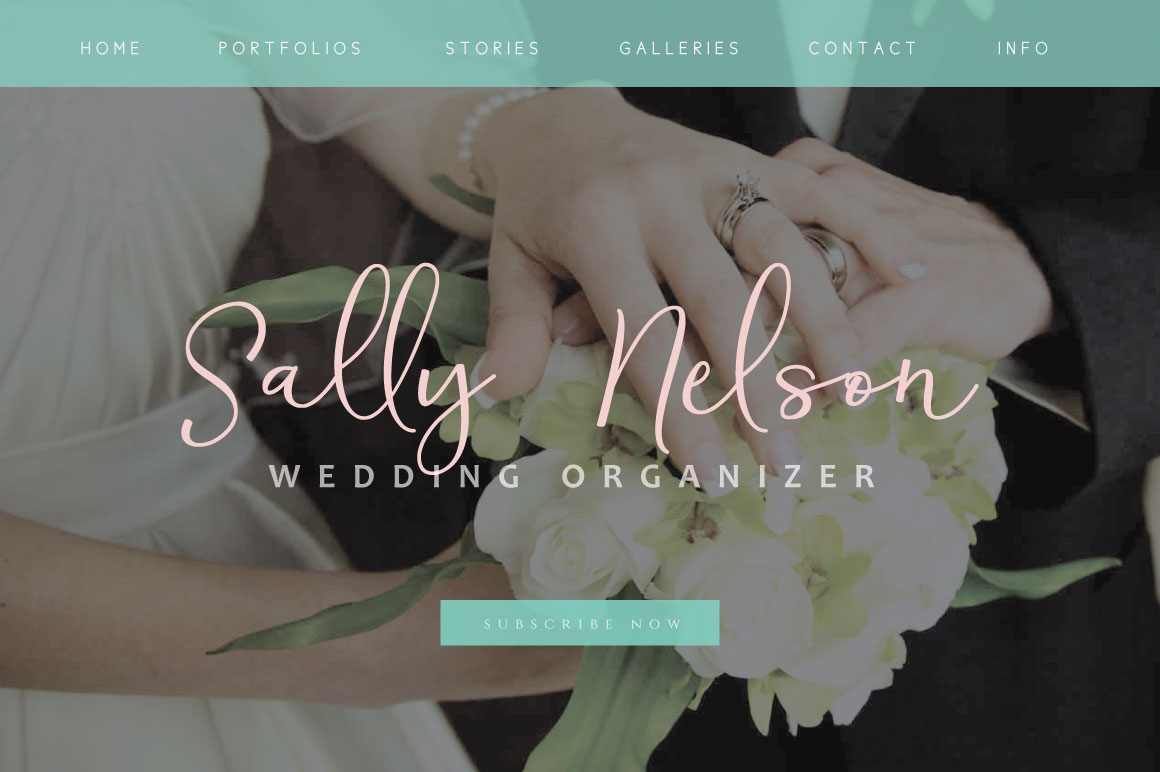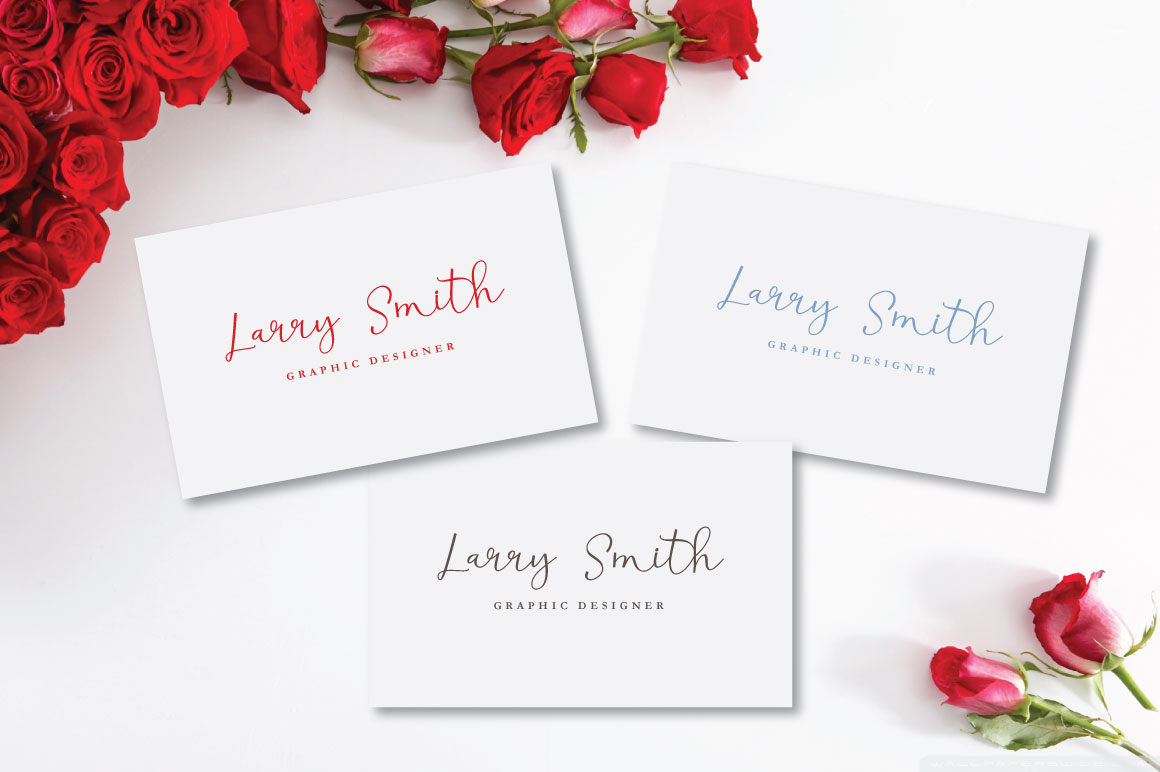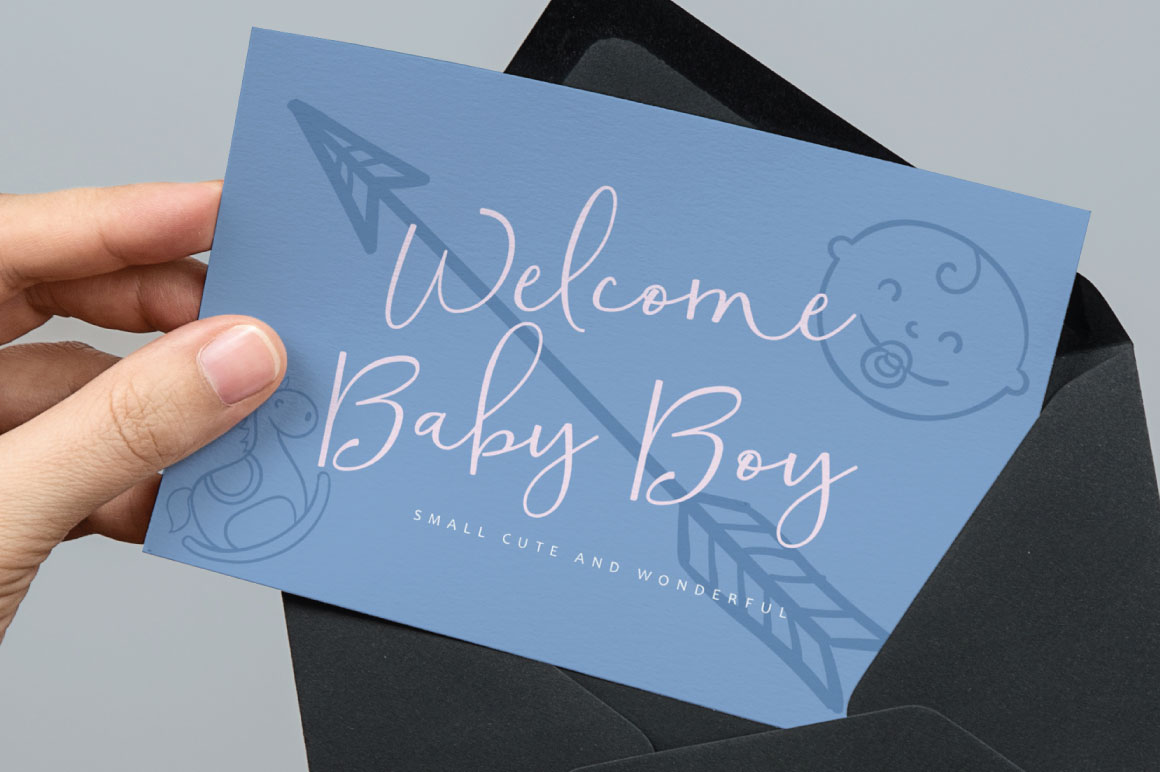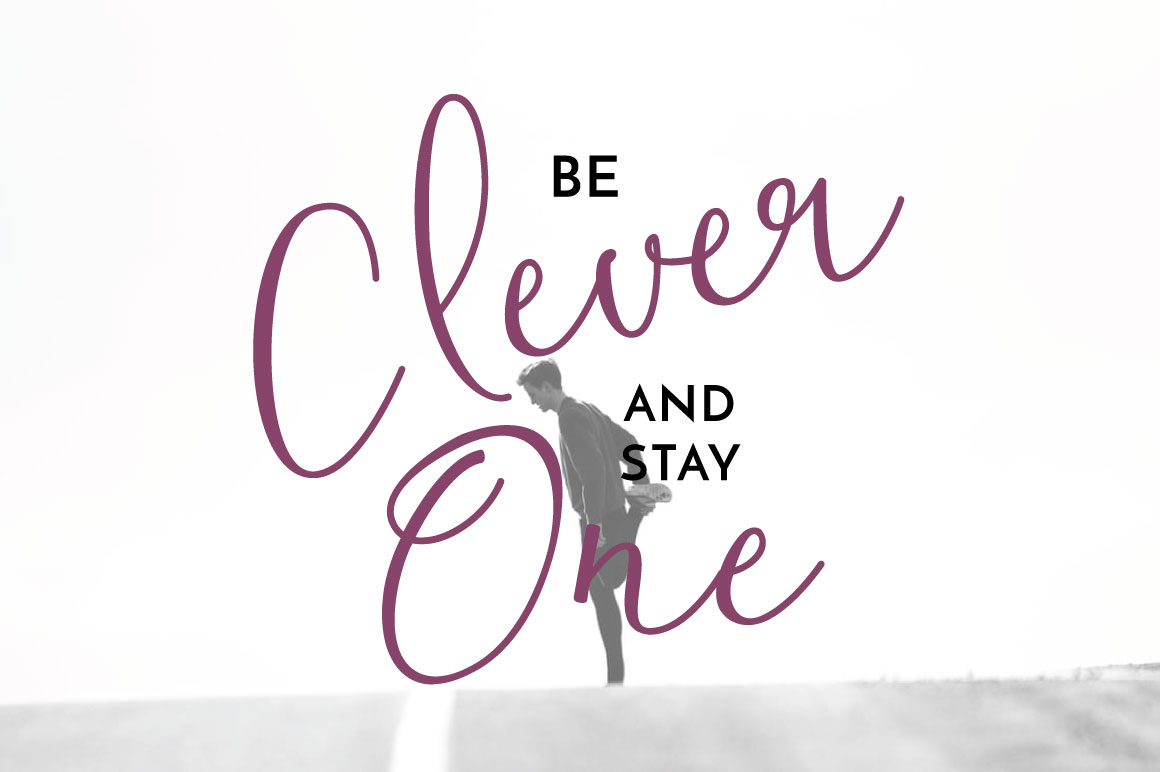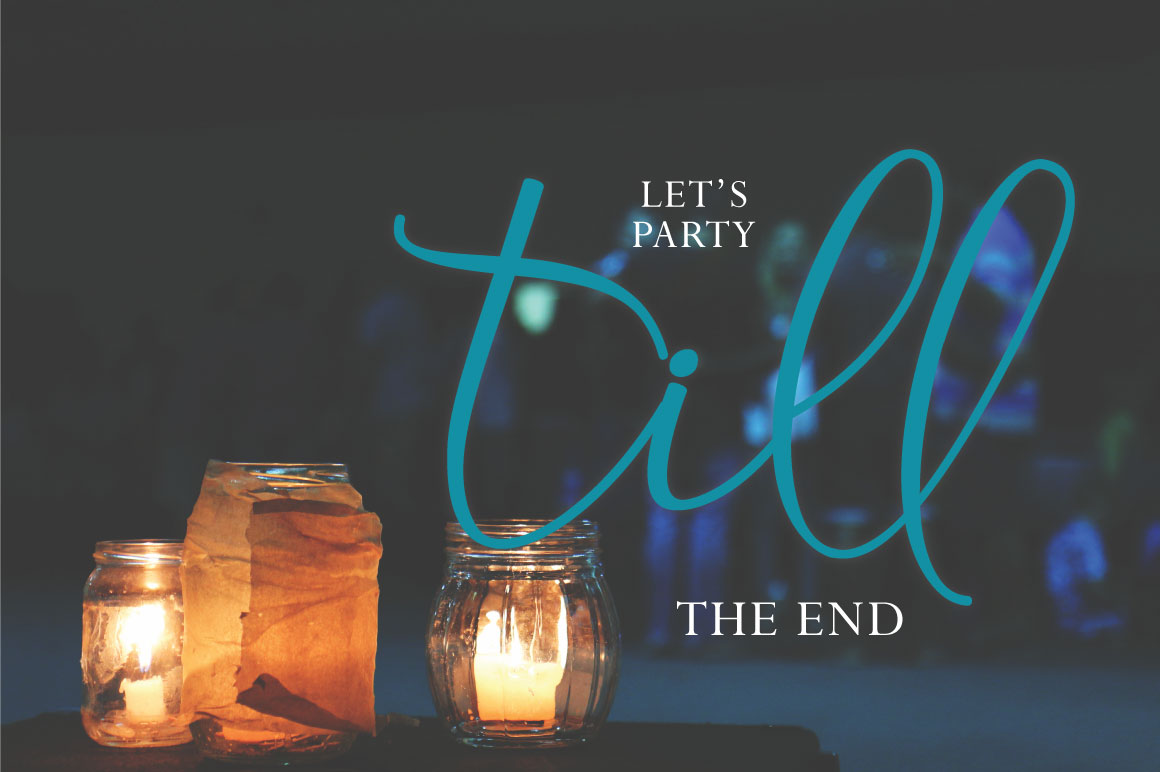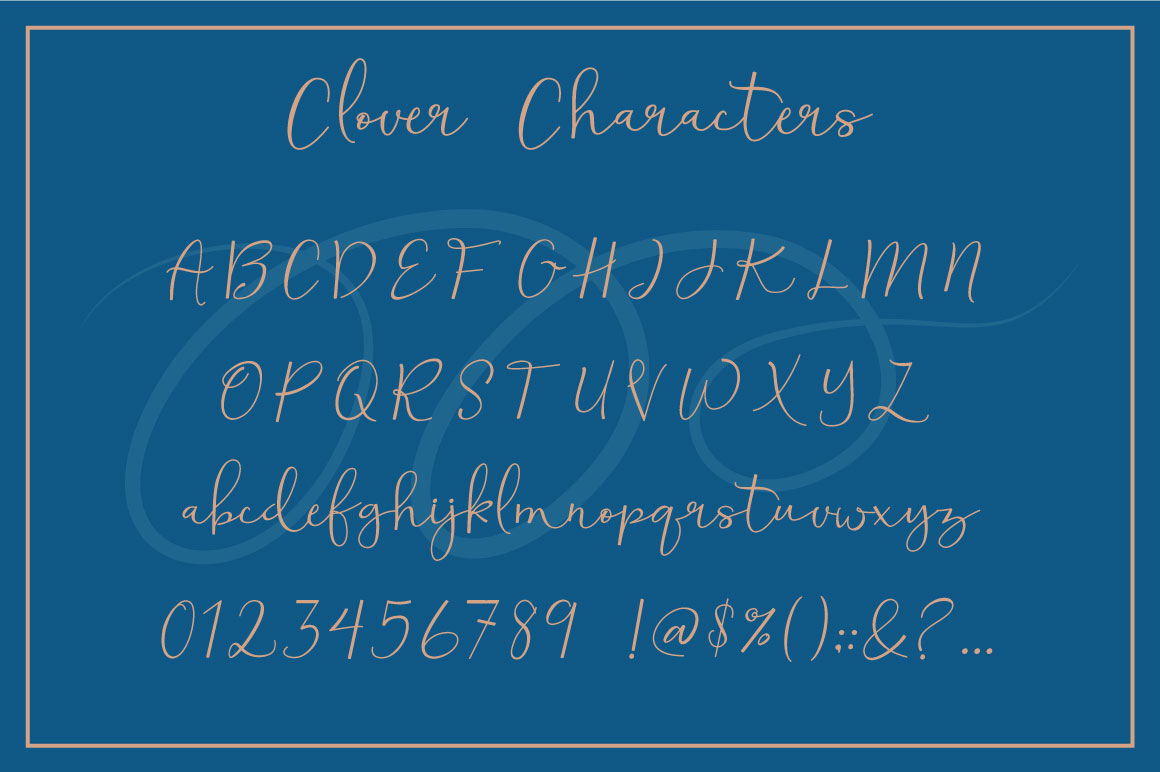
Clover Font: A Charming Handwritten Typeface for Your Creative Projects
Are you a designer or crafter looking for a font that can add a touch of personality to your projects? Look no further than the Clover Font. This simple, casual handwritten font is designed to help you create flowing texts that are both elegant and approachable. In this article, we’ll take a closer look at the Clover Font, its features, and how you can use it to elevate your designs.
What is Clover Font?
Clover Font is a charming, handwritten typeface that is perfect for a wide range of creative projects. Its simple and casual design makes it easy to read and understand, while its elegant lines and curves add a touch of sophistication. Whether you’re designing a logo, creating a social media post, or crafting a handmade card, the Clover Font is a versatile choice that can help you achieve your design goals.
Key Features of Clover Font
So, what makes the Clover Font so special? Here are some of its key features:
- Simple and Casual Design: The Clover Font has a simple and casual design that makes it easy to read and understand. Its clean lines and curves create a smooth and flowing text that is perfect for a wide range of projects.
- Handwritten Style: The Clover Font has a handwritten style that adds a touch of personality to your designs. Its elegant lines and curves create a warm and inviting feel that is perfect for crafts, DIY projects, and other creative endeavors.
- Versatile: The Clover Font is a versatile choice that can be used for a wide range of projects. Whether you’re designing a logo, creating a social media post, or crafting a handmade card, this font is a great choice.
- Elegant and Approachable: The Clover Font is both elegant and approachable. Its simple design makes it easy to read, while its elegant lines and curves add a touch of sophistication.
How to Use Clover Font in Your Designs
Now that we’ve covered the features of the Clover Font, let’s talk about how you can use it in your designs. Here are some ideas to get you started:
- Handmade Cards and Crafts: The Clover Font is a great choice for handmade cards and crafts. Its handwritten style and elegant lines make it perfect for creating personalized and unique gifts.
- Social Media Posts: The Clover Font is also a great choice for social media posts. Its simple and casual design makes it easy to read, while its elegant lines and curves add a touch of personality to your posts.
- Logos and Branding: If you’re looking for a font for your logo or branding, the Clover Font is a great choice. Its elegant and approachable design makes it perfect for businesses that want to create a warm and inviting brand.
- DIY Projects: The Clover Font is also a great choice for DIY projects. Its simple and casual design makes it easy to use, while its elegant lines and curves add a touch of sophistication to your projects.
Tips for Using Clover Font
Here are some tips for using the Clover Font in your designs:
- Use it with Images: The Clover Font looks great when paired with images. Try using it with photos, illustrations, or other graphics to create a visually appealing design.
- Experiment with Colors: The Clover Font comes in a range of colors, so don’t be afraid to experiment. Try using different colors to create a unique and eye-catching design.
- Keep it Simple: The Clover Font is a simple and casual font, so keep your design simple and clean. Avoid cluttering your design with too many elements.
In conclusion, the Clover Font is a charming handwritten typeface that is perfect for a wide range of creative projects. Its simple and casual design makes it easy to read, while its elegant lines and curves add a touch of sophistication. Whether you’re a designer or crafter, the Clover Font is a great choice for your next project. So why not give it a try and see how it can elevate your designs?